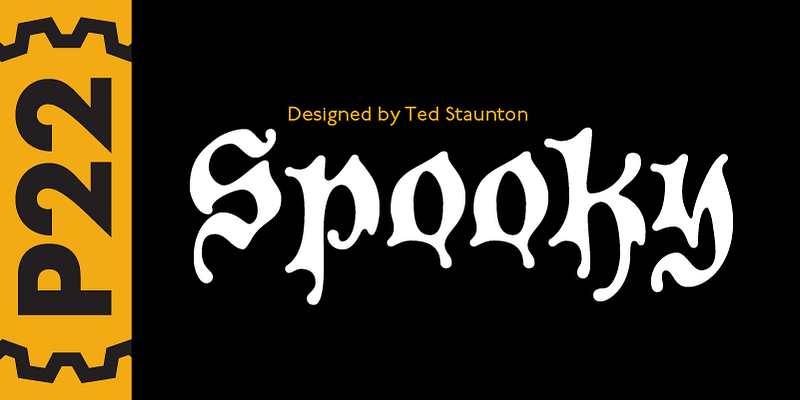
P22 Spooky Font Free Download is a playful and eerie typeface designed with a fun, Halloween-inspired theme. Featuring jagged edges, irregular forms, and whimsical details, this font is perfect for projects related to spooky themes such as Halloween invitations, party decorations, posters, and any design that aims to evoke a sense of spooky fun.
P22 Spooky Font brings a lighthearted, creepy vibe to your designs, with its unique character shapes making it ideal for both display and decorative uses. Whether you're crafting promotional material for a Halloween event or creating a fun, festive atmosphere, this font adds personality and excitement to your typography.